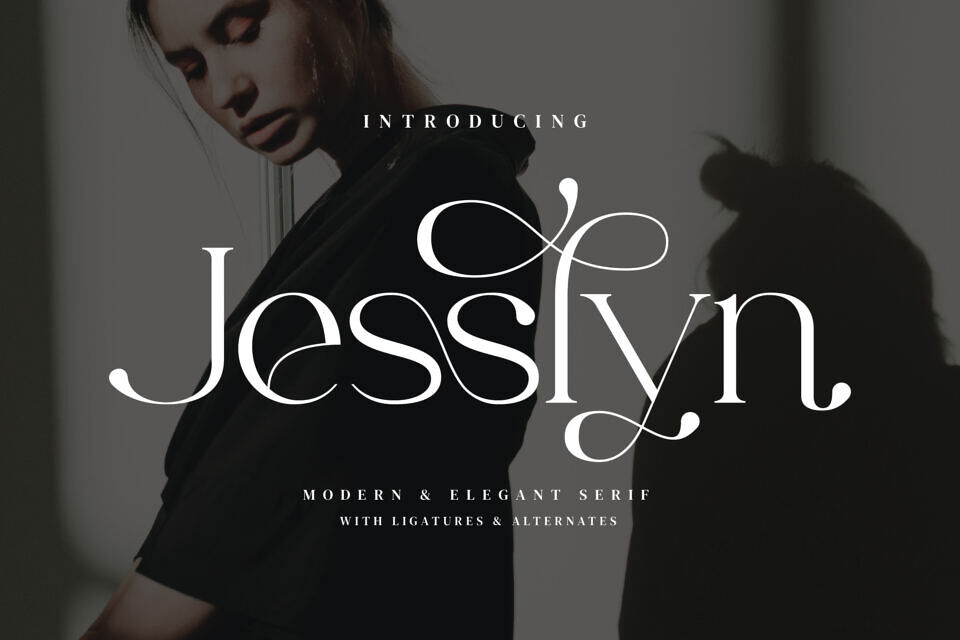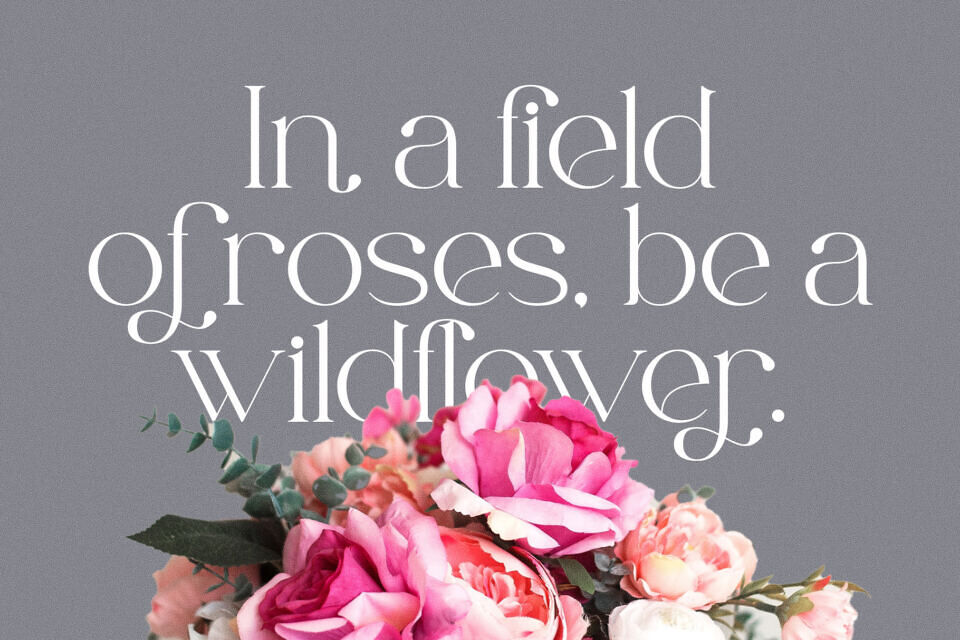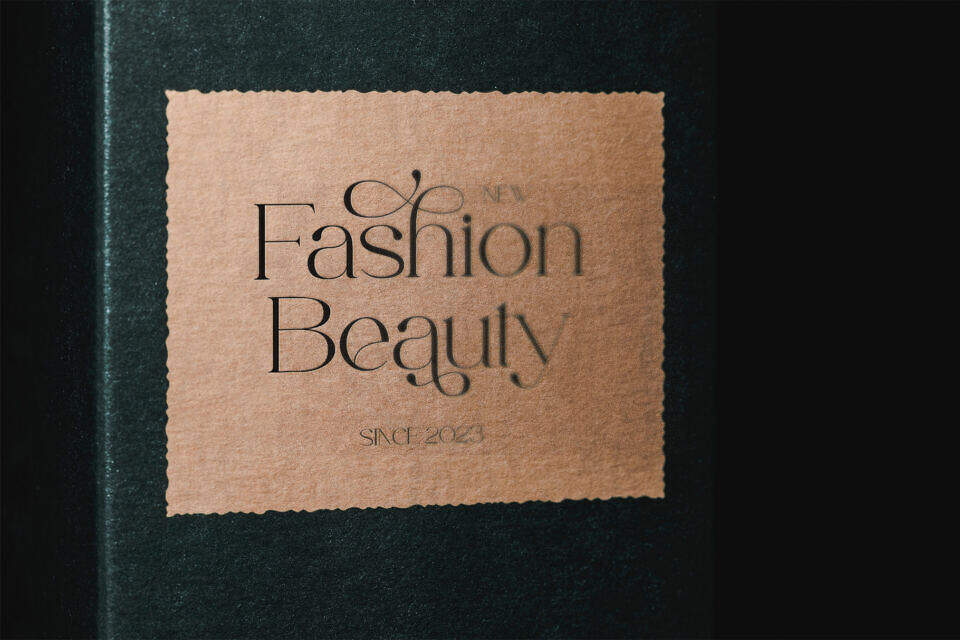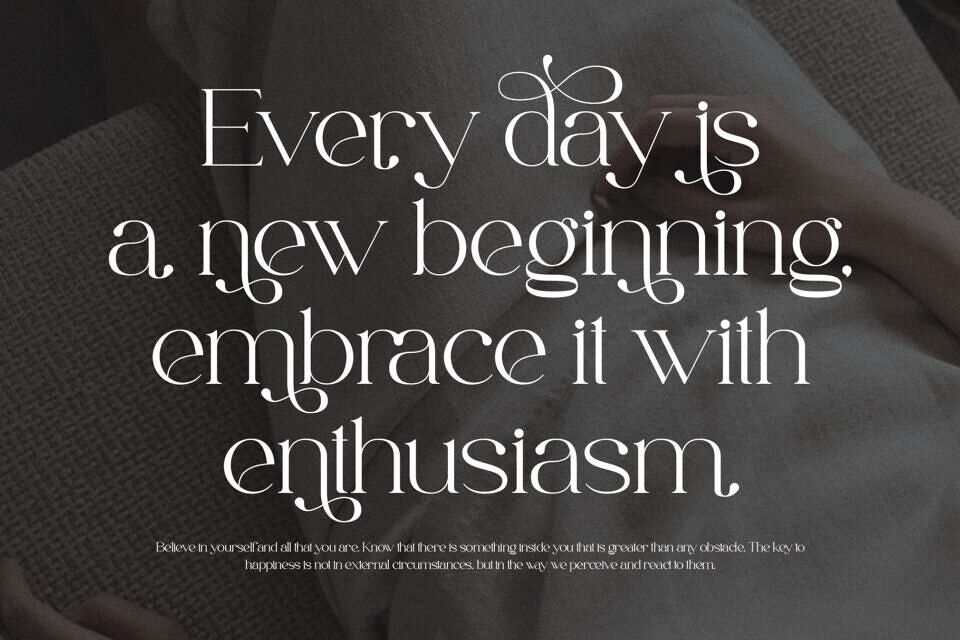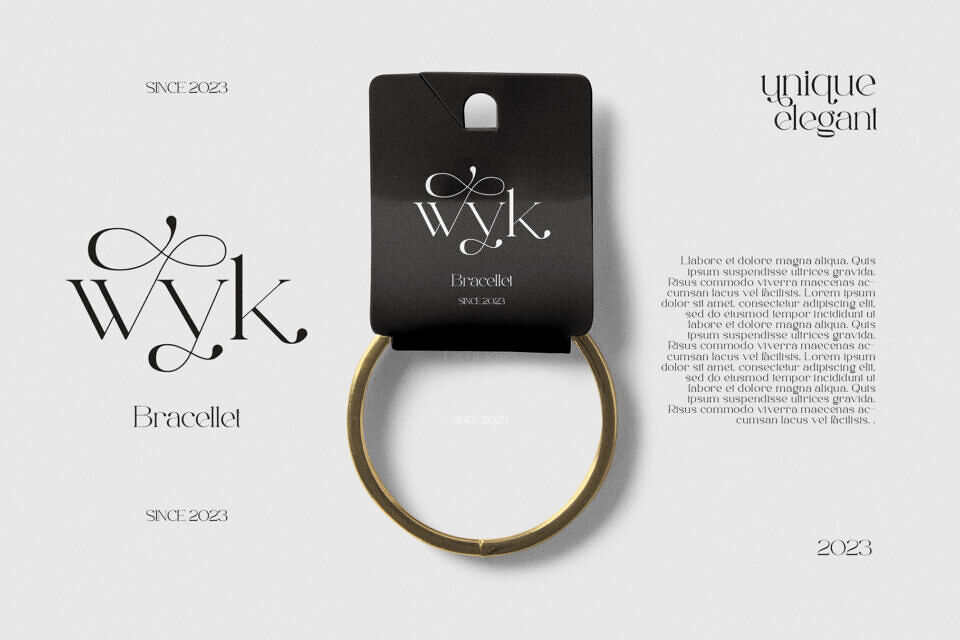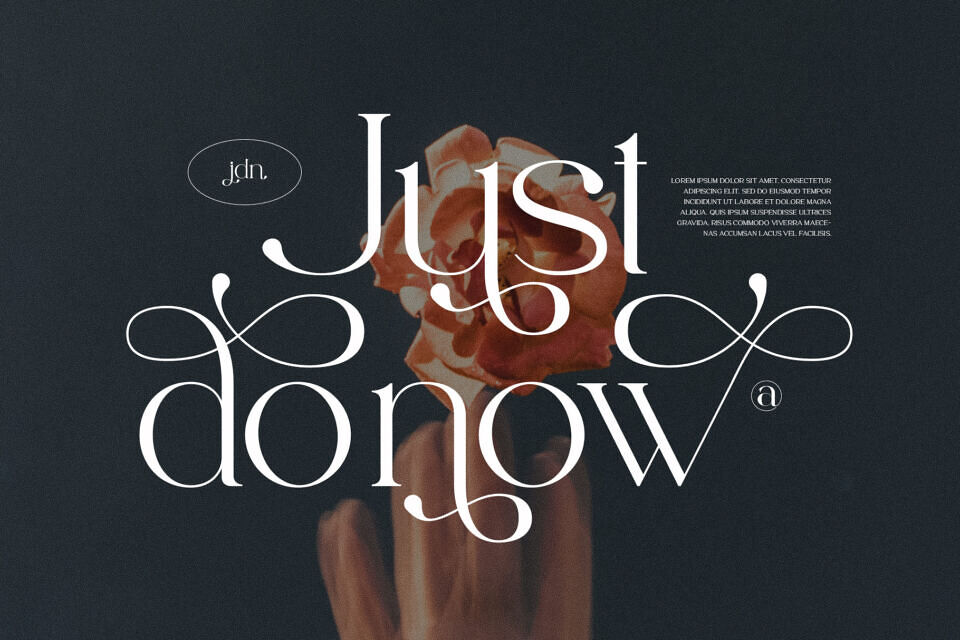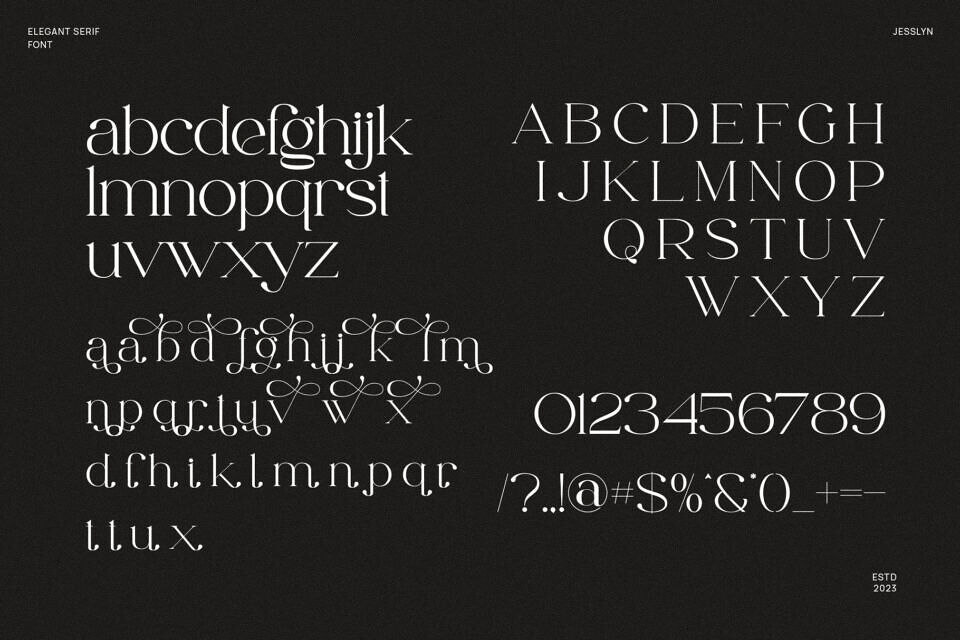
Jesslyn Font
Jesslyn is a stunning, elegant font inspired by minimalist design. It’s perfect for creating templates, brochures, videos, and invitations, as well as fashion and advertising materials, including logos and headlines.